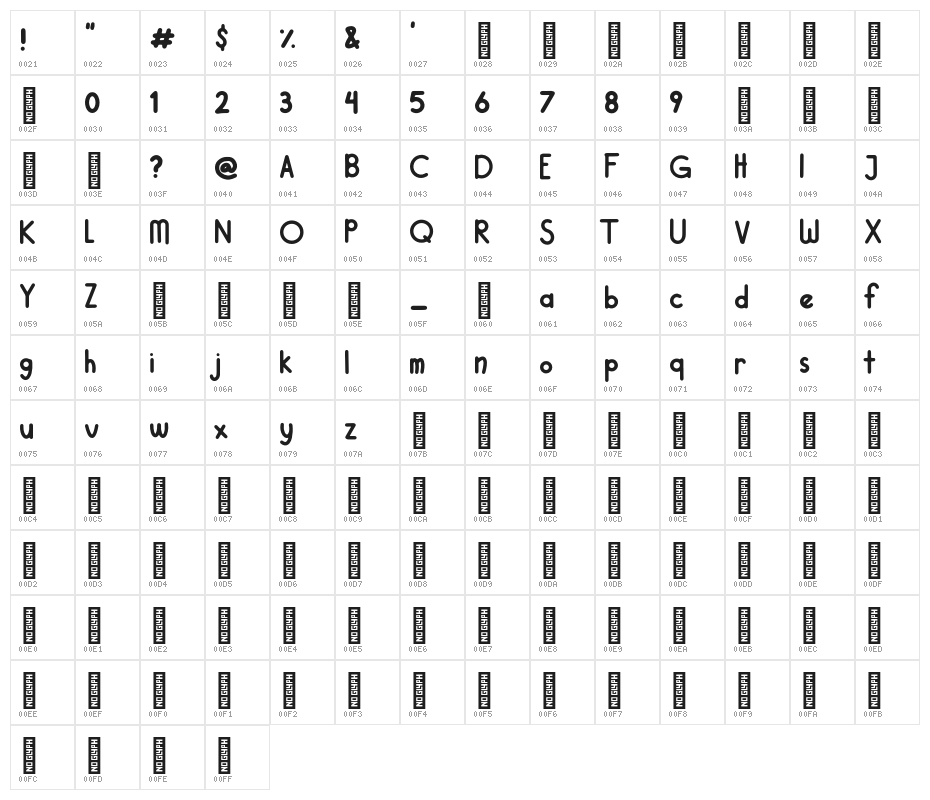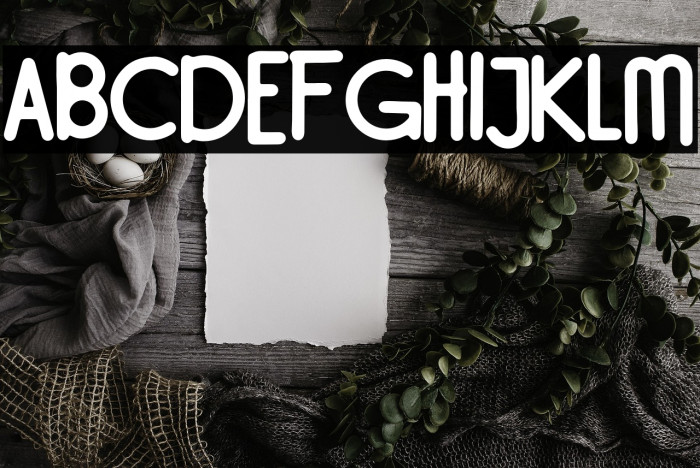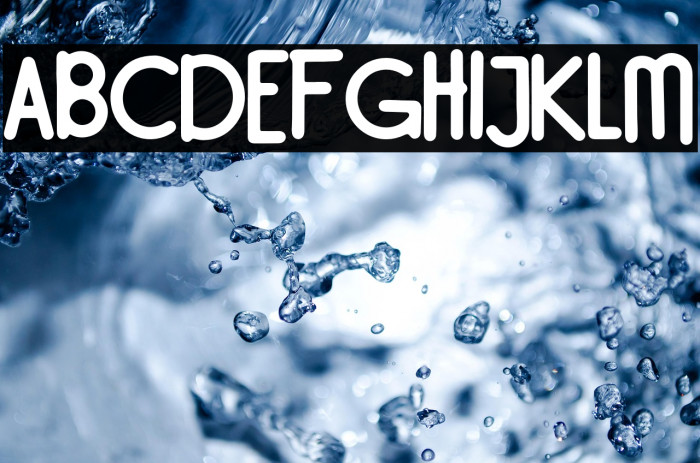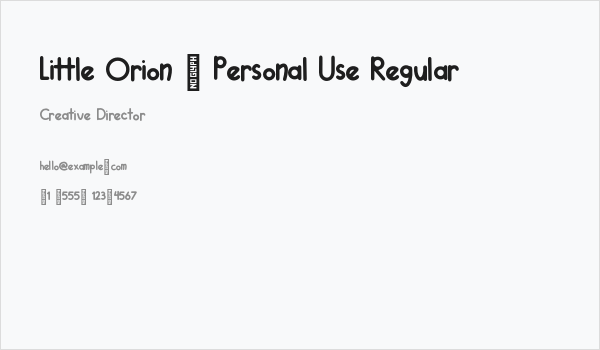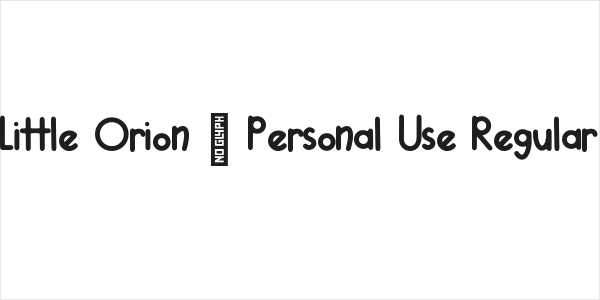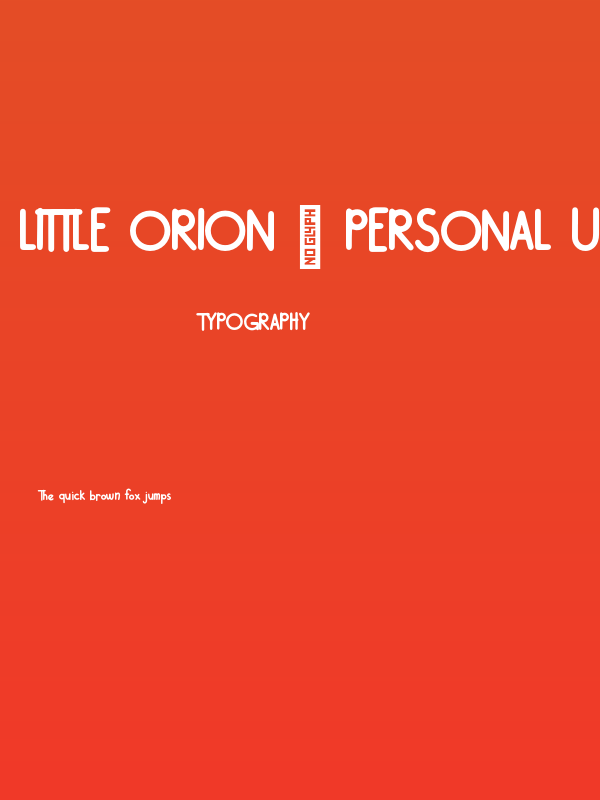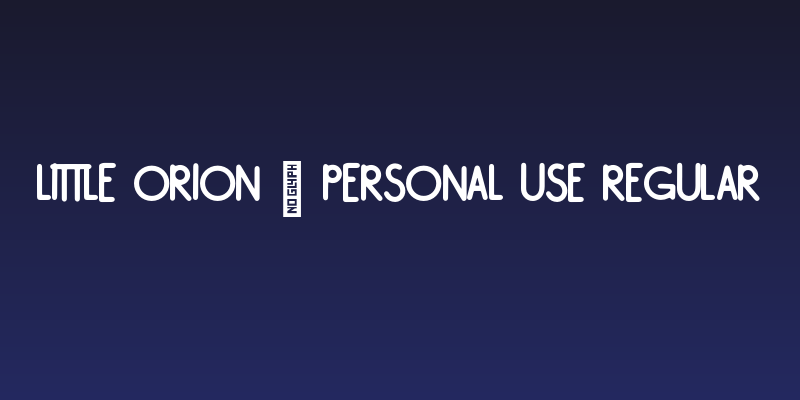
Little Orion - Personal Use Regular Font
Little Orion - Personal Use Regular Description
This font features a playful and rounded style, characterized by its bold and smooth curves. The uppercase and lowercase letters maintain a consistent width, creating a cohesive and friendly appearance. The numbers are equally rounded, enhancing the font's approachable and informal nature. The lack of sharp edges and the uniformity in stroke width contribute to its modern and casual aesthetic. This font is ideal for projects that require a touch of whimsy and approachability, making it suitable for children's books, playful branding, or casual invitations.
| Proposed Projects | Ideal for children's books, playful branding, casual invitations, and informal designs. |